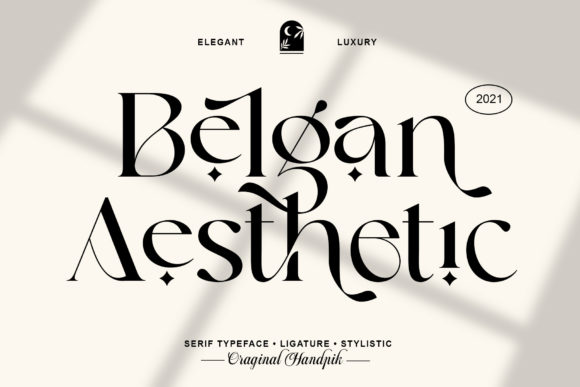
Introducing Belgan Aesthetic Font: Elevate Your Designs with Elegance
In the realm of typography, a font can make or break the visual appeal of a design. For those seeking a touch of sophistication and uniqueness, the Belgan Aesthetic Font stands out as a remarkable choice. This stylish and distinct serif font is not only visually captivating but also PUA encoded, ensuring effortless access to all glyphs and swashes. In this comprehensive guide, we’ll delve into the features, benefits, and applications of the Belgan Aesthetic Font, exploring how it can elevate your designs to new heights.
What is Belgan Aesthetic Font?
Belgan Aesthetic is a meticulously crafted serif font, designed to bring a sense of elegance and refinement to any project. Its distinctive style sets it apart from more traditional fonts, offering a fresh and modern aesthetic that’s perfect for a variety of design applications. Whether you’re working on a branding project, a website, or printed materials, this font is sure to leave a lasting impression.
The Power of PUA Encoding
One of the standout features of the Belgan Aesthetic Font is its PUA (Private Use Area) encoding. This means that the font includes a range of additional glyphs and swashes, easily accessible through the font’s character map. PUA encoding allows designers to tap into these extra characters, significantly expanding the font’s versatility and creative potential. With Belgan Aesthetic, you can effortlessly add intricate details and unique flourishes to your designs, setting them apart from the ordinary.
Key Features of Belgan Aesthetic Font
- Distinctive Serif Style: A classic serif font with a modern twist, perfect for projects requiring a touch of sophistication.
- PUA Encoded: Easy access to a wide range of glyphs and swashes, allowing for extensive creative freedom.
- High Versatility: Suitable for various design applications, including branding, web design, print materials, and more.
- Elegant and Refined: Adds a touch of luxury and elegance to any design, making it ideal for high-end projects.
Applications of Belgan Aesthetic Font
The versatility of the Belgan Aesthetic Font makes it suitable for a wide range of design projects. Here are some of the key areas where this font can shine:
- Branding and Logo Design: Create memorable and sophisticated logos with the font’s unique character.
- Website Design: Enhance your website’s typography with a font that offers both readability and style.
- Printed Materials: From business cards to brochures, add a touch of elegance to your print designs.
- Packaging Design: Stand out on store shelves with packaging that exudes luxury and refinement.
Tips for Using Belgan Aesthetic Font
To make the most of the Belgan Aesthetic Font, consider the following tips:
- Pair with Complementary Fonts: Combine Belgan Aesthetic with sans-serif fonts for a balanced and dynamic look.
- Experiment with Swashes: Take advantage of the font’s PUA encoding to add unique swashes and glyphs to your design.
- Adjust Font Sizes: Play with different font sizes to create visual hierarchy and emphasize key elements.
- Consider Color: Choose colors that complement the elegant and refined nature of the font.
The Belgan Aesthetic Font is a powerful tool for designers seeking to add a touch of elegance and sophistication to their projects. With its distinctive serif style, PUA encoding, and high versatility, this font is sure to become a staple in your design arsenal. Whether you’re working on branding, web design, or print materials, Belgan Aesthetic offers the perfect blend of style and functionality. Elevate your designs to new heights with this remarkable font and discover the impact it can have on your creative projects.
- What is PUA encoding? PUA (Private Use Area) encoding allows for the inclusion of additional glyphs and swashes within a font, accessible through the font’s character map.
- Is Belgan Aesthetic suitable for web design? Absolutely, the font’s clear and elegant design ensures excellent readability on digital platforms.